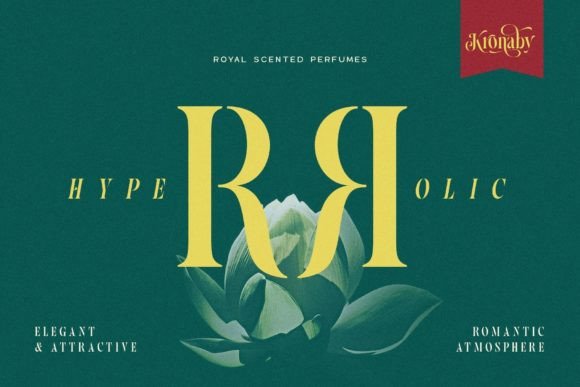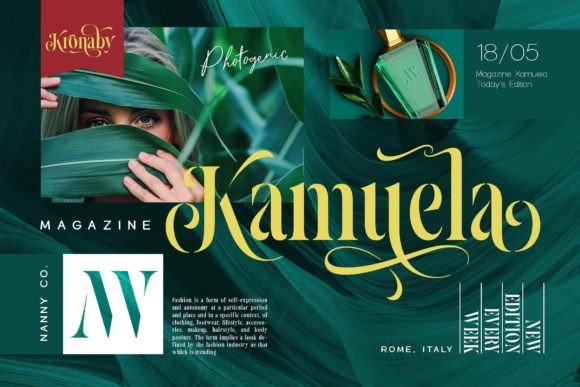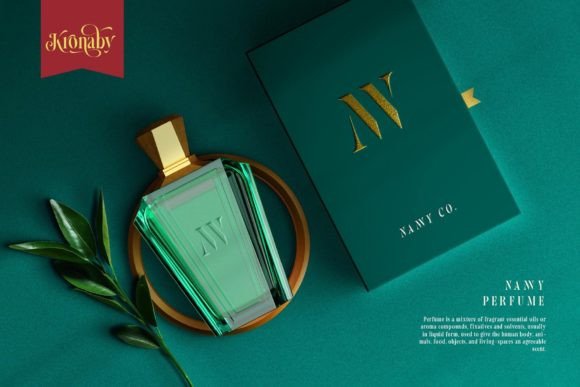
Introduction to Kronaby Font
Usually, stencil fonts are synonymous with military, retro, and bold characters, but Kronaby has an elegant and attractive stencil style combined with a subtle swash.
Serif typefaces such as β€œKronaby” are very easy to apply to any design, especially those with an elegant, modern, and classic theme This font is PUA encoded, which means you can access all of the glyphs and swashes with ease.
Key Features of Kronaby Font